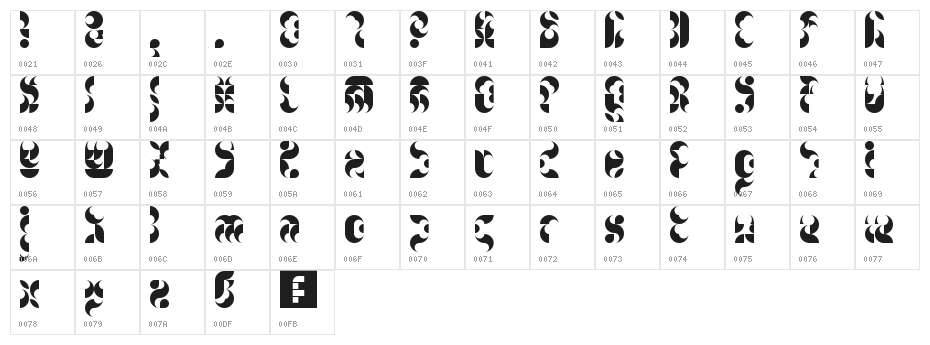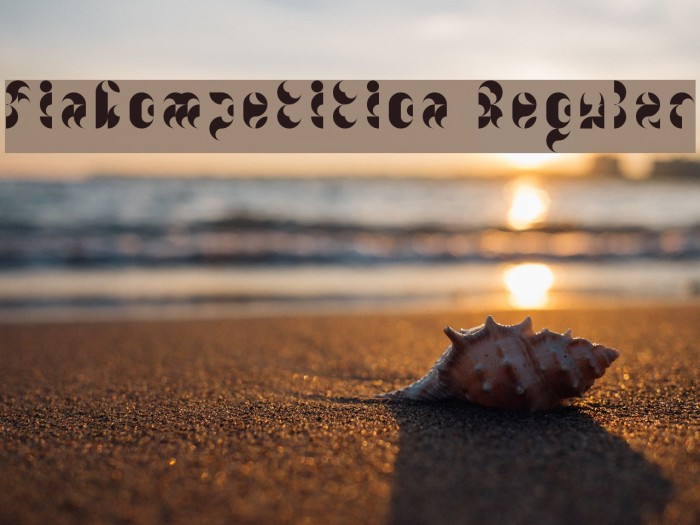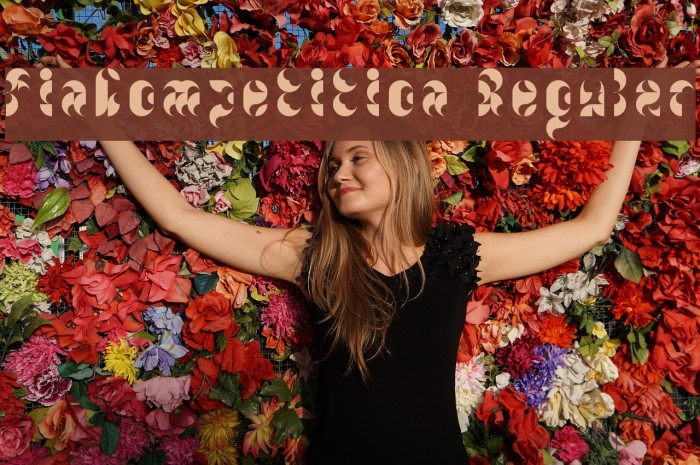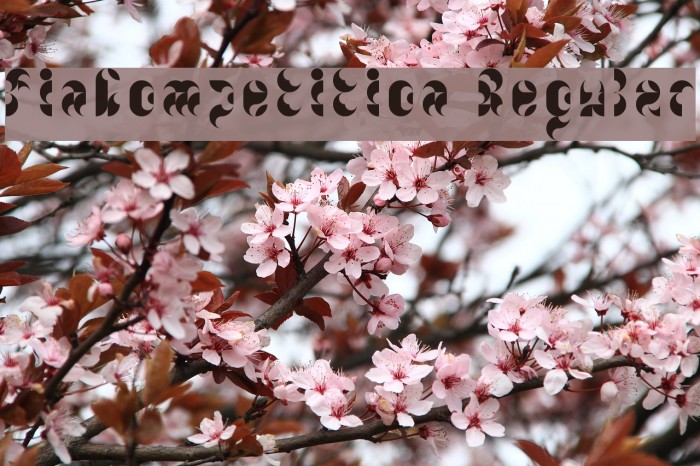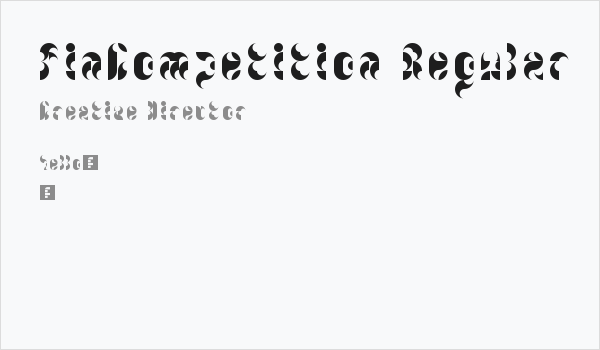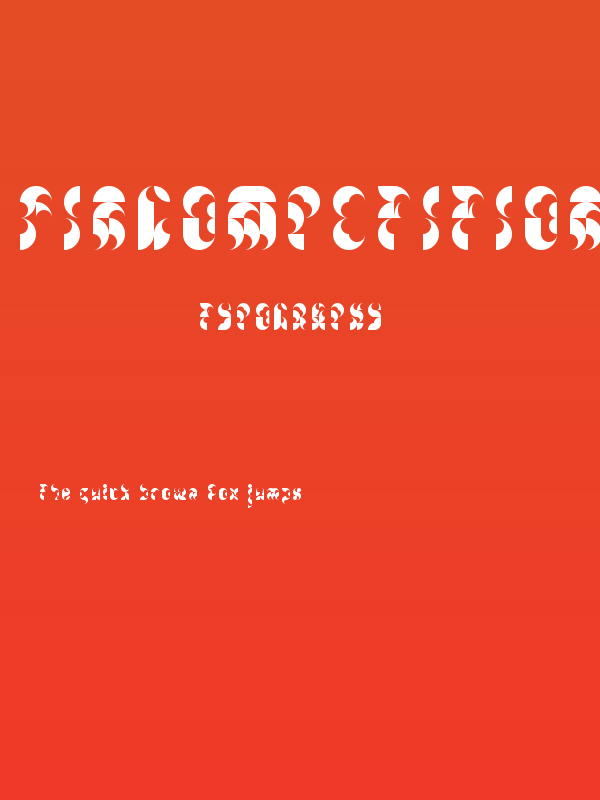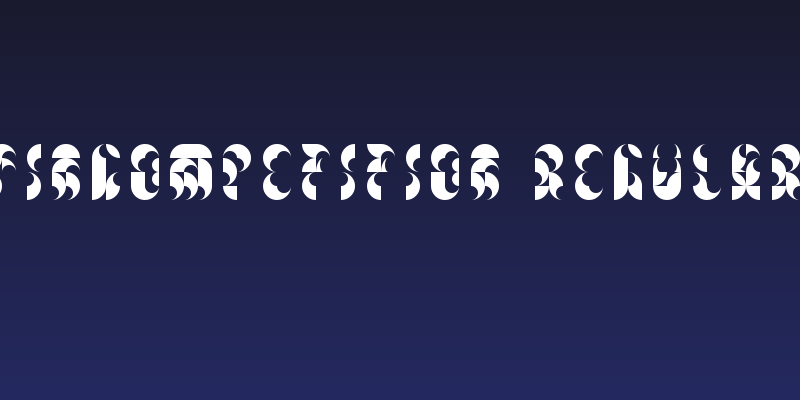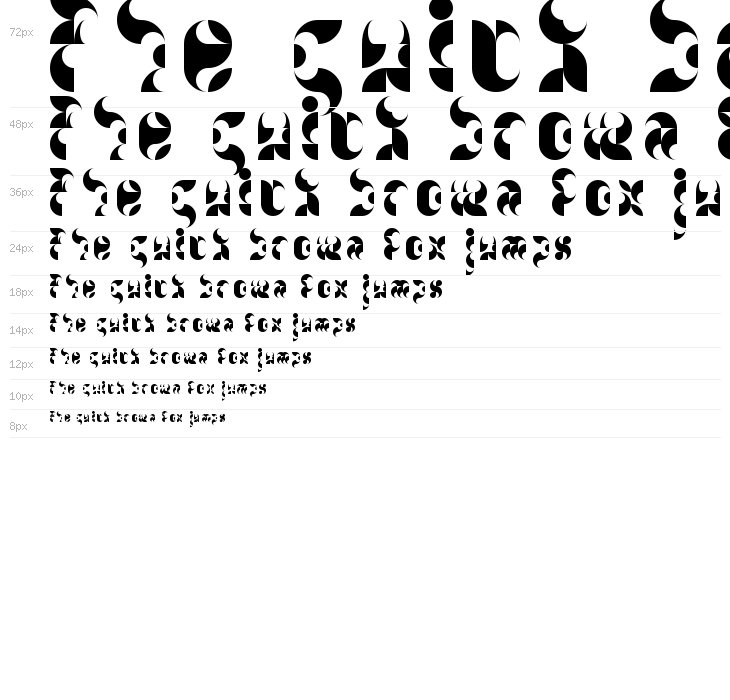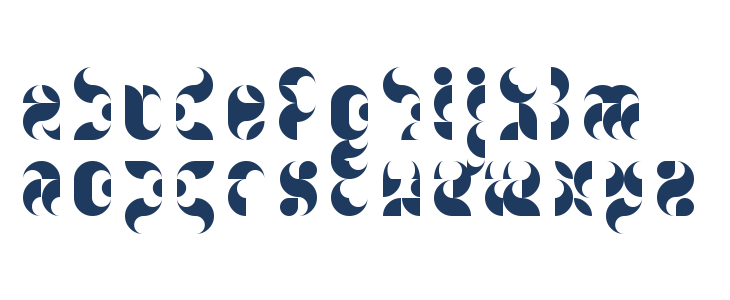
FinCompetition Regular Font
FinCompetition Regular Description
This font features a highly decorative and abstract design, characterized by bold, geometric shapes and high contrast between thick and thin strokes. Each character is crafted with a unique combination of curves and angles, creating a visually striking and artistic appearance. The font's intricate design elements make it stand out, with each letterform appearing almost like a piece of modern art. The use of negative space is prominent, adding to its dynamic and eye-catching style. This font is not suited for body text due to its complexity but excels in creative and artistic applications where a bold statement is desired.
Overall StyleModern, Decorative
Use CaseLogos, Posters, Artistic projects
Proposed ProjectsIdeal for artistic projects, branding, logos, posters, and any design requiring a bold and unique visual impact.